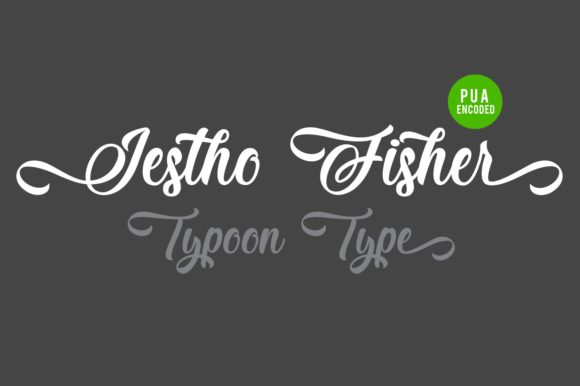
HomeScript FontsJestho Fisher Font Script Fonts Jestho Fisher Font FacebookXPinterestWhatsApp About Jestho Fisher Font The Jestho Fisher is a handwritten script font with an elegant, yet striking touch. DOWNLOAD NOW People also explored Brithney Castile Font Qournatte Font Krriiukk Font Neuropol X Bashope Font Jelliope Font Shooby Doowap Shebop Font Meledak Font Dreams Come True Font 369 0 TagsJestho Fisher Font Previous articleAnne De Marie FontNext articleRossela Font LEAVE A REPLY Cancel reply Comment: Please enter your comment! Name:* Please enter your name here Email:* You have entered an incorrect email address! Please enter your email address here Website: Save my name, email, and website in this browser for the next time I comment. Personal Use Free Electroharmonix Personal Use Free Read more about this font Bakk Trieng Personal Use Free Read more about this font Eric”s Personal Use Free Read more about this font Sui Genesis Personal Use Free Read more about this font BLOG Best Fonts for T-Shirt Design – Top 2025 Picks In 2025, t-shirt design has become more than just fashion—it's a form of self-expression. Whether you're... To increase your work productivity, choose the most readable fonts. Transform Your Website: Elevate Your Typography with 7 Best Web Font Generators Top 10 Handwritten Fonts That Elevate Your Designs